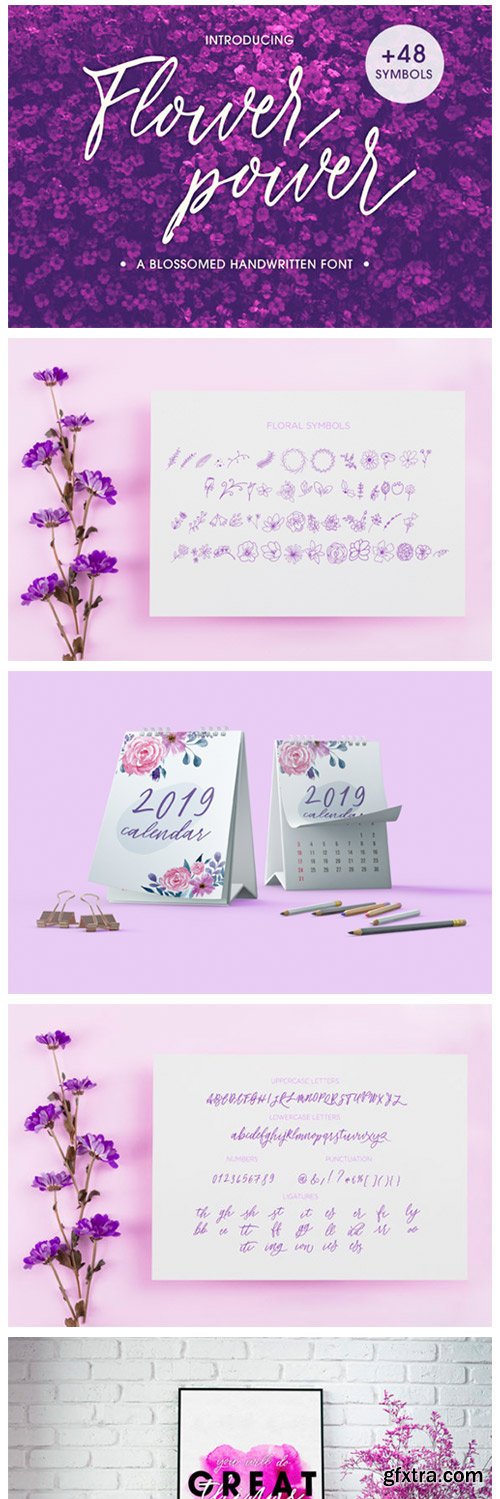
Flower Power Font
Flower Power is a gorgeous script font, ideal for wedding stationery, scrapbooking, print design, web content, customizing objects and much more.